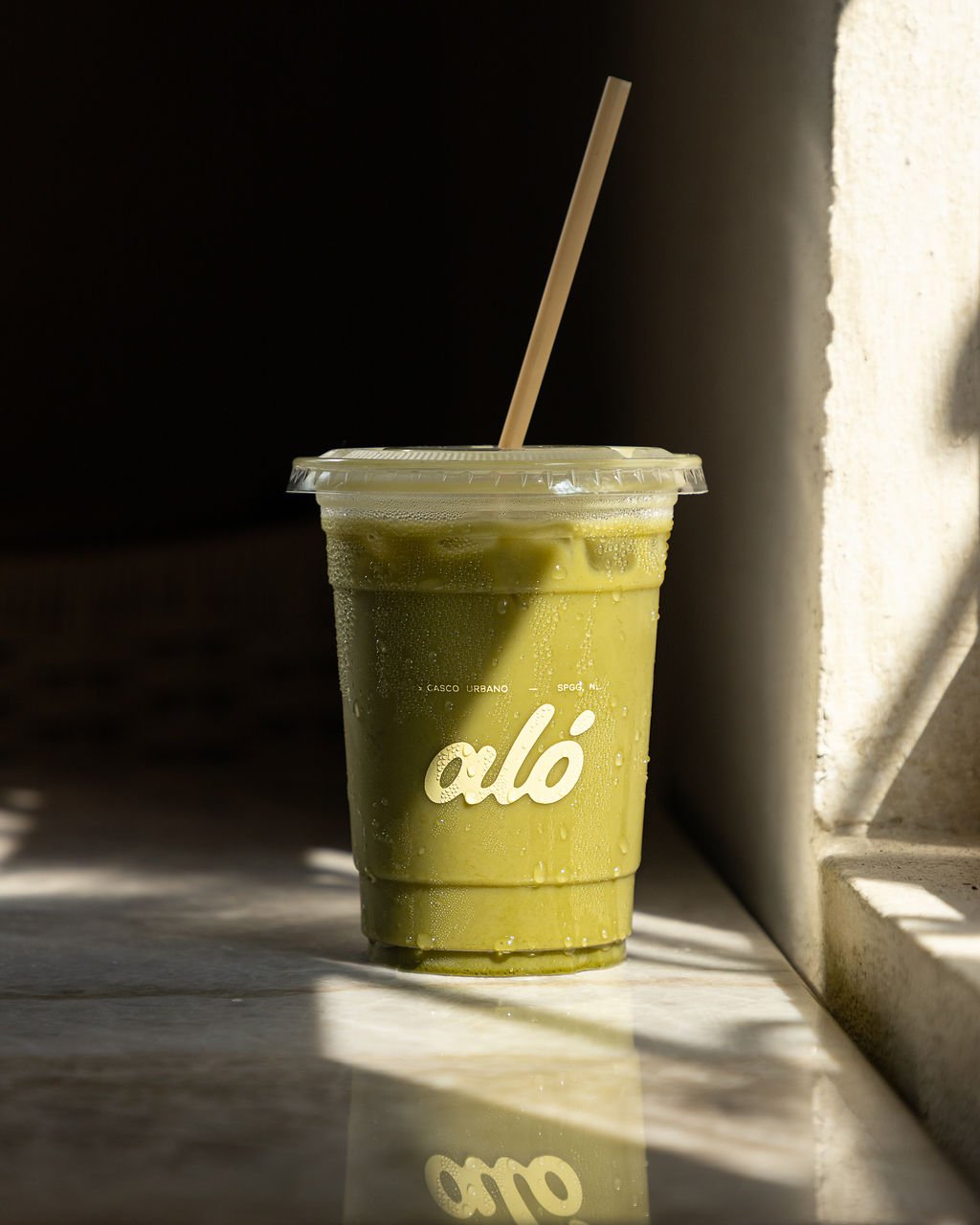
Branding and identity design for Alo Cafe coffeeshop in the historic district of San Pedro, Monterrey by Caracter Studio
THE BRIEF
Aló Café came to us looking to create a brand inspired by the world’s great coffee experiences. With a vision of renovating a historic house in the center of San Pedro, Monterrey, they wanted a fresh, cool coffee shop to attract local passerby.
SOLUTION
Caracter took an approach of looking at this brand as a fun, fresh space to give this historic area a cool yet authentic, warm yet sophisticated vibe. We wanted the brand to be playful, inclusive and dynamic to attract a crowd that knows good coffee and quality.
Branding and identity design for Alo Cafe coffeeshop in the historic district of San Pedro, Monterrey by Caracter Studio
DESIGNING THE WORDMARK
We proposed different variations of wordmarks to begin with, and the client had a special interest in scripts. So we sketched out different ideas and kept polishing, until we arrived at a funky, syrupy script. This was a great base for a wordmark that could later on switch out the O for different illustrations that represent the coffee shop’s aesthetic, like its iconic flower or coffee bean.